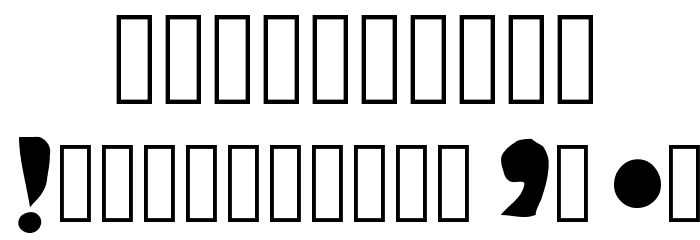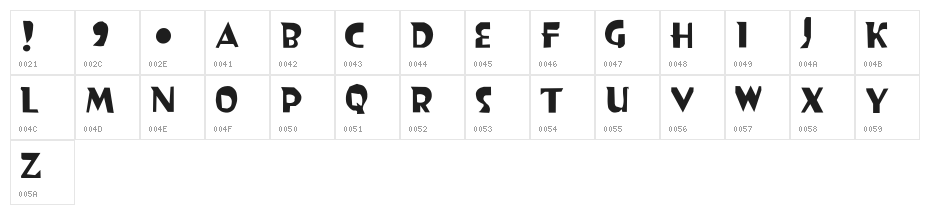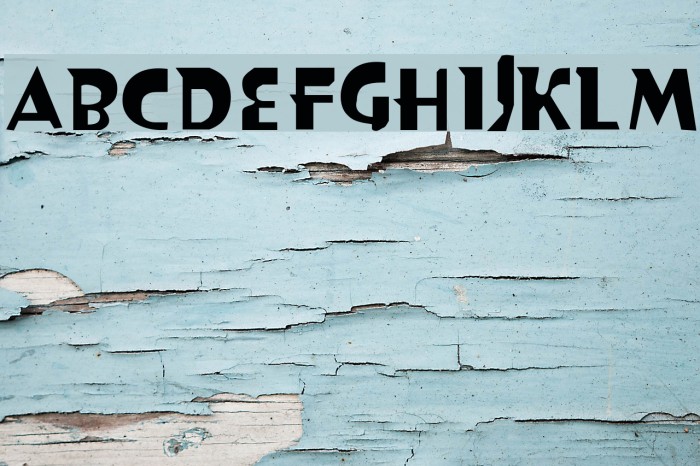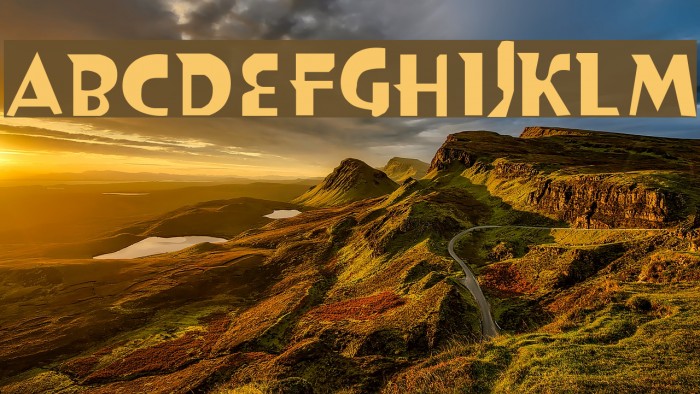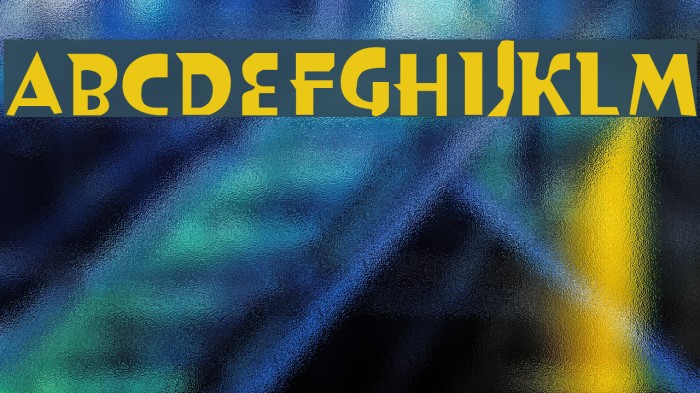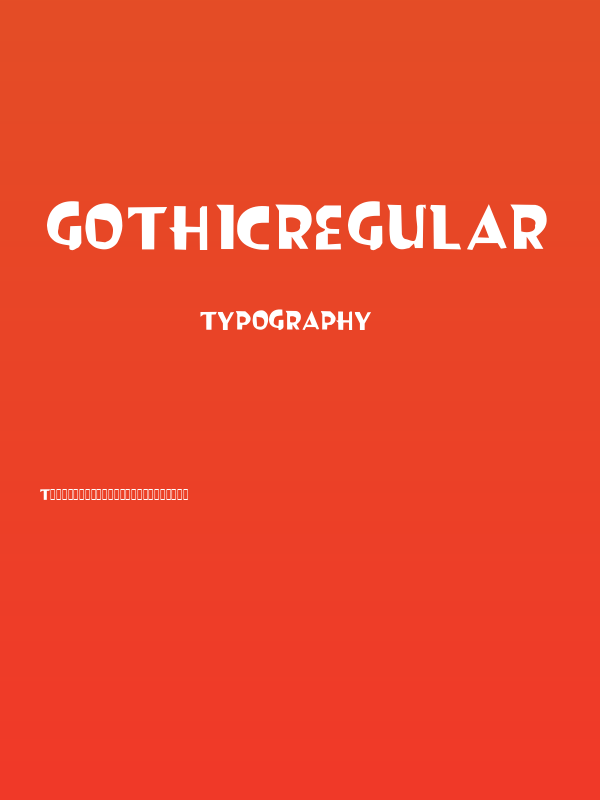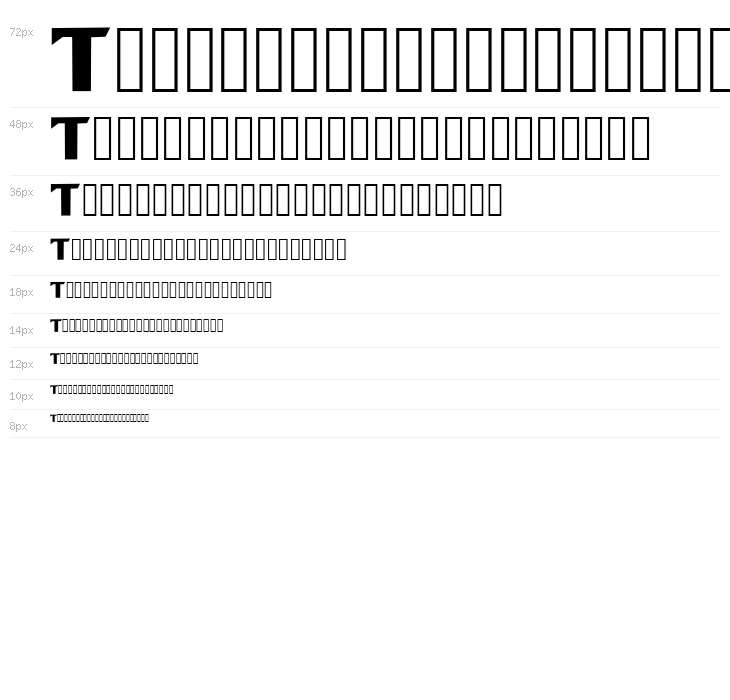
GothicRegular Font
GothicRegular Description
This font features a bold and striking design with sharp, angular edges and a distinct gothic influence. The uppercase letters are characterized by their strong geometric forms, creating a sense of power and authority. The font's style is reminiscent of traditional Gothic script but with a modern twist, making it suitable for contemporary designs. The characters have a consistent weight, contributing to a uniform appearance across the alphabet. The special characters maintain the same boldness and angularity, ensuring cohesion throughout the font set.
| Overall Style | Modern Gothic |
| Proposed Projects | Ideal for use in branding, posters, album covers, and any project requiring a bold, impactful typeface. |